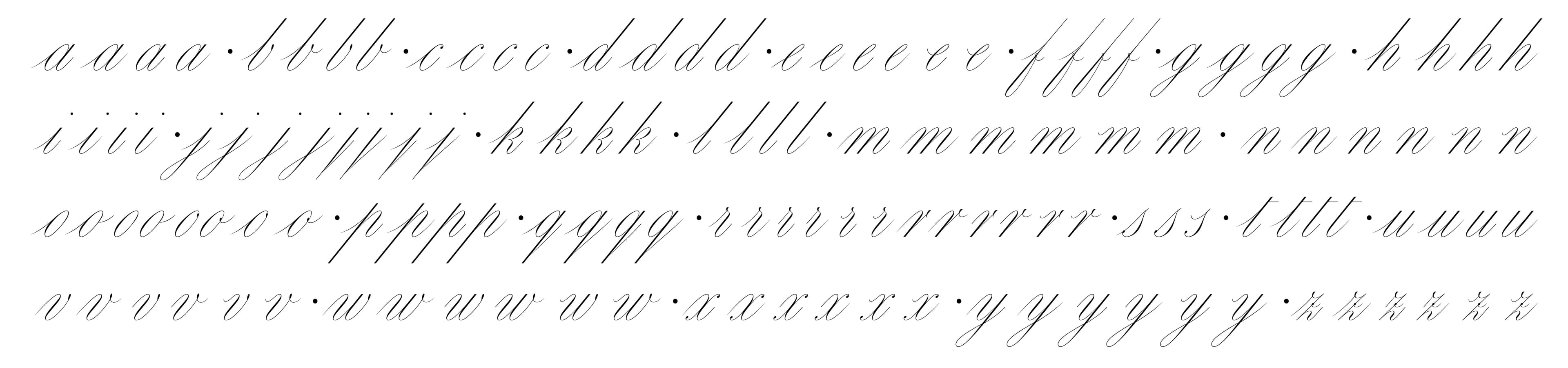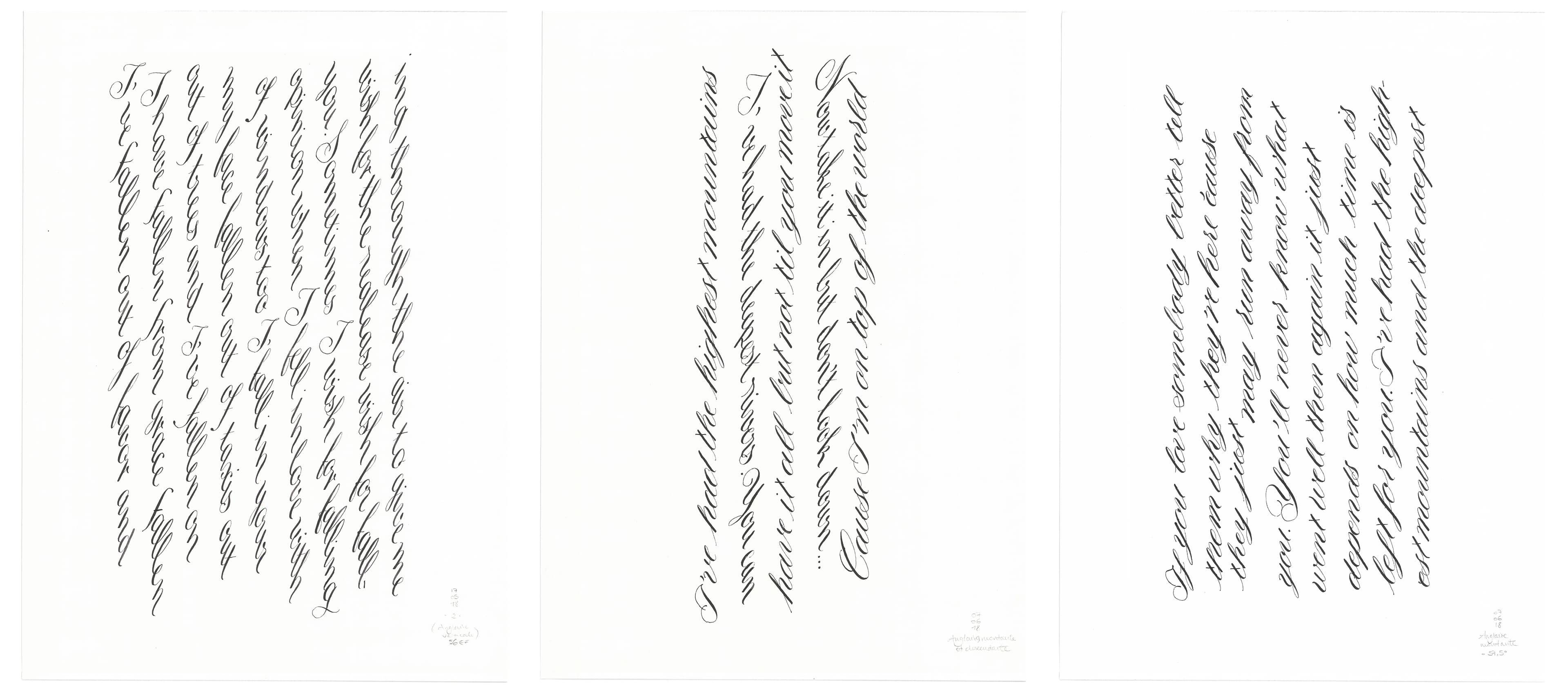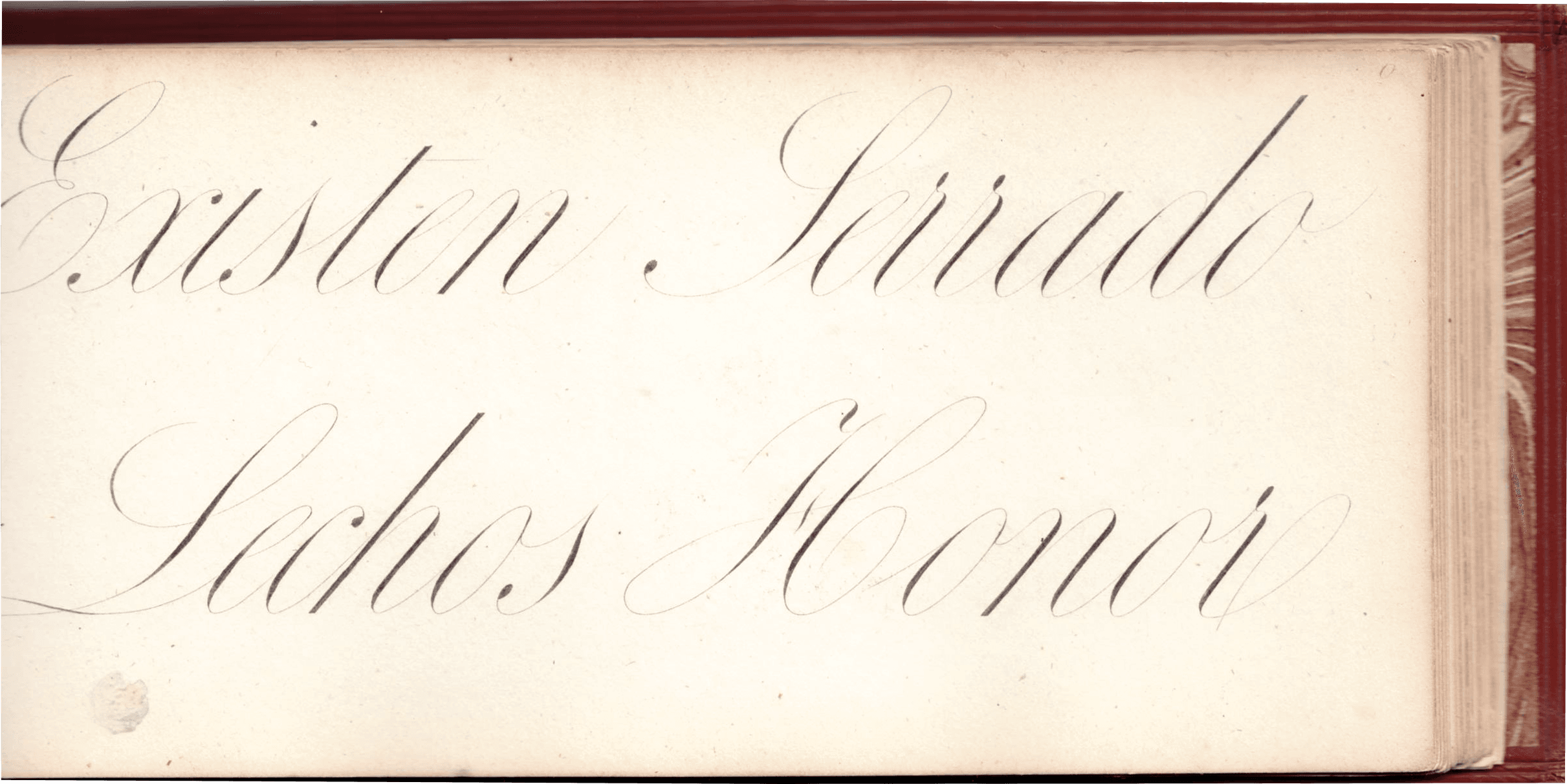
Process: Carta Nueva
About Carta Nueva
5 optical sizes, 5 total fonts
Carta writing to be continued
Carta Nueva is the digital re-imagination of a pointed-nib calligraphy model from 1851 in Barcelona, Spain. 170 years after the calligrapher’s penning and printing, we found the original manual at an antique fair in Madrid and handed over the project to type designer My-Lan Thuong. When she began designing Carta Nueva in 2019, we could not have anticipated just how far My-Lan would take these letterforms. Under her care and imagination, we knew the spirit of the letterforms would be treated thoughtfully and take on a new life of their own for the 21st century. Much like its designer, Carta Nueva is poised and lively, with an unbounded potential for growth and flourishment.
Carta Reference
Carta’s starting point: a 1851 manual, from Barcelona, found at an antique fair in Madrid.
Construction
Carta Nueva’s beauty shines in the rhythm and contrast of the strokes. While drawn digitally, Carta Nueva preserves the essence of the calligrapher’s choreography — adding pressure on downward strokes to establish a consistent beat, then becoming as light as air on the upward strokes to taper to a fine point. The hairlines almost disappear upon contact with the stems, requiring them to be drawn at a 4096 units per em scale to capture every intricacy. Around this orderly tempo, the nib winds, loops, and arabesques. This lively twirl is accentuated most in the ornamental drawings of the uppercase letters.
As with any typeface that is in conversation with history, there comes a point where the designer takes over to write her own finale. While the original manual included the standard alphabet, My-Lan envisioned the look of the remaining glyph set, including punctuation, symbols, mathematical signs, accented and special letters. My-Lan’s inventiveness shines through in her sketches and calligraphic prototypes which have always been an integral part of her process. While hand-sketching allows a quick exploration of shapes, the practice of calligraphy with a pointed-nib pen was important to understand the ductus, weight distribution, and bouma of the connected script.
Carta Sketches
My-Lan's research process involves a lot of sketching
Carta Nueva intends to reproduce the virtuosity and flow of cursive writing, which requires a robust set of contextual alternates. The typeface currently includes 1,698 glyphs, in contrast to ~600 glyphs found in a standard Latin typeface! Each lowercase has 4 to 6 alternates that are automatically activated depending on its position and neighboring letters. The shapes, instrokes, and outstrokes were structured to work together to give the typeface a look that feels naturally penned in every possible combination.
Carta contextual alternates
Contextual Alternates
Optical Sizes
Carta Nueva’s charm is emphasized by the high-contrast between the downstrokes and extreme thins on the upstrokes. At the same time, one of the challenges was preserving the airy quality of the razor-thin hairlines without them vanishing at smaller sizes. In order to let Carta Nueva shine in any scenario and medium from digital screens to printed paper, My-Lan drew variants that subtly add hairline stroke weight while maintaining the typeface’s sturdy, graceful posture. Carta Nueva’s five optical sizes are versatile and can make a grand gesture through a single word and headline, and also dedicate attention to delicate paragraphs of text.
Multi-directional Family
Beyond this first style, Carta Nueva will soon grow into a multi-directional family that will make heads turn.
Although the standard for setting Latin is horizontal, My-Lan believes the Latin alphabet can just as successfully embrace verticality and directionality. This concept of multi-directional writing has been on her mind for several years now, and began while working on her diploma project at École Estienne in Paris. The project, fittingly titled Vertigo, puzzled her with how to adapt the Latin alphabet to vertical typesetting.
During her research, My-Lan felt that instead of simply stacking letters or rotating them, finding the sweet spot in-between the two would offer a solution for words to look stable and legible when set vertically. Practicing calligraphy was key to finding the combination of variables to achieve this balance, and Carta Nueva’s Spencerian-style script proved to be best suited for this exploration.
Carta multi-directional Sketches
My-Lan Thuong's vertical point-nib calligraphy
The development of Carta Nueva’s directional styles is not only about perfecting a technical challenge, but also an opportunity for My-Lan to push boundaries and go beyond conventions in type design. Carta Nueva Upward, in particular, reflects both innovation and imagination in the genre of vertical typesetting by defying gravity with grace.
Through a rigorous finessing of skewing, rotating, distorting, and optically correcting letterforms along horizontal and vertical baselines, Carta Nueva’s signature silhouette is maintained in all directions. These styles lead to possibilities where horizontal and vertical counterparts can be paired together, with text that climbs like vines and cascades like water.
Carta multi-directional sample
Carta Nueva coming multi-directional styles
Given the complexity of this design, Carta Nueva’s multidirectional expansion will be released in a second version. For now, we will leave you with a sneak preview of Carta Nueva Backward, Downward, and Upward.